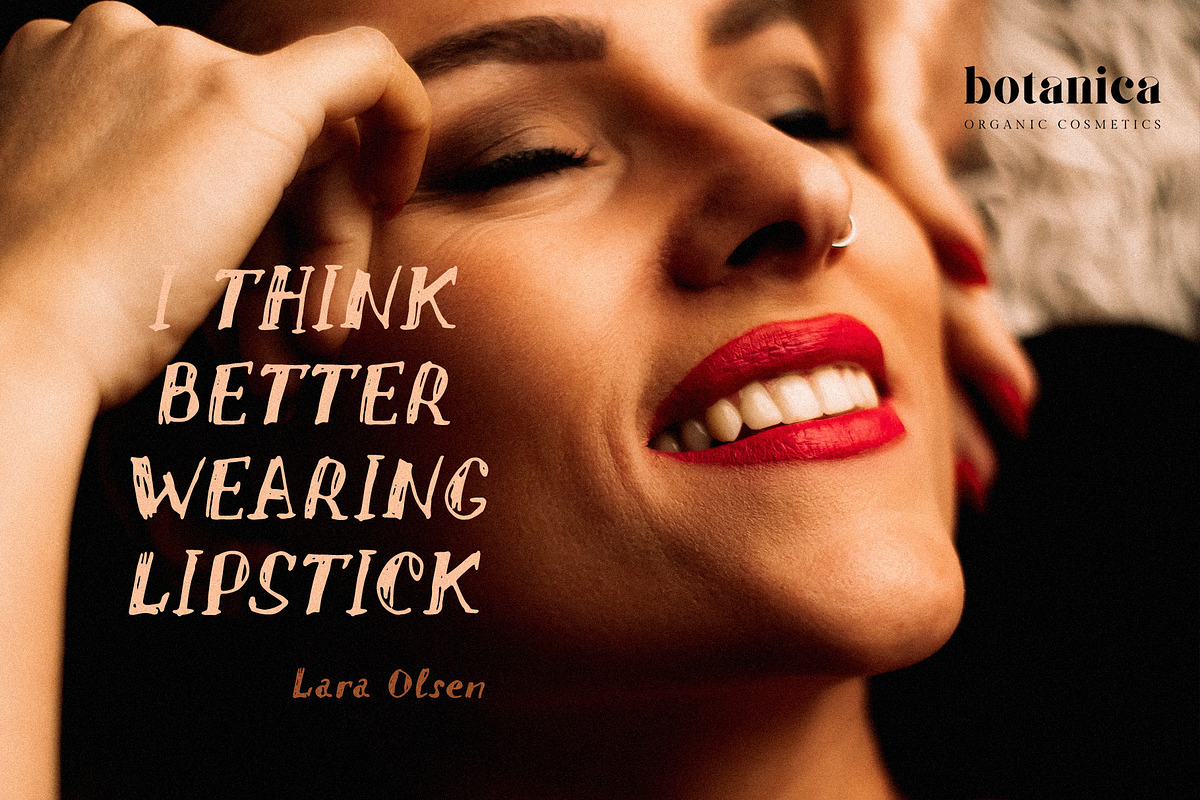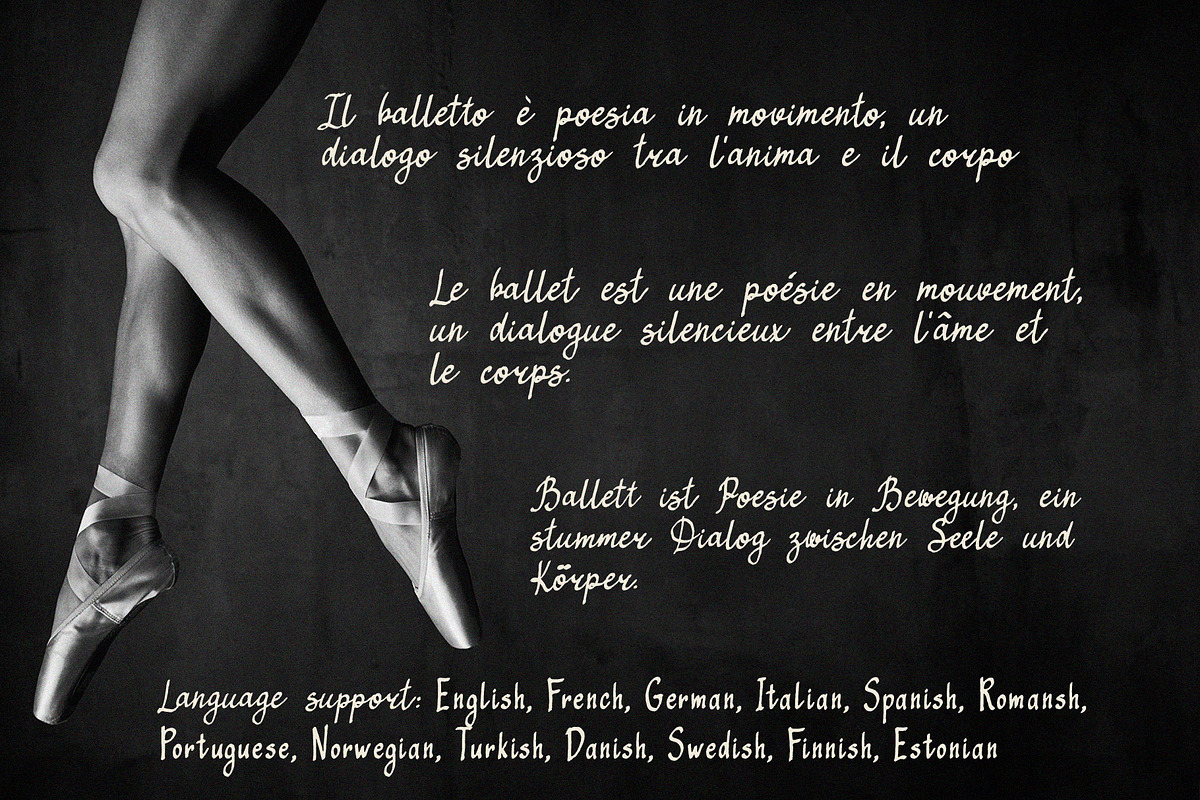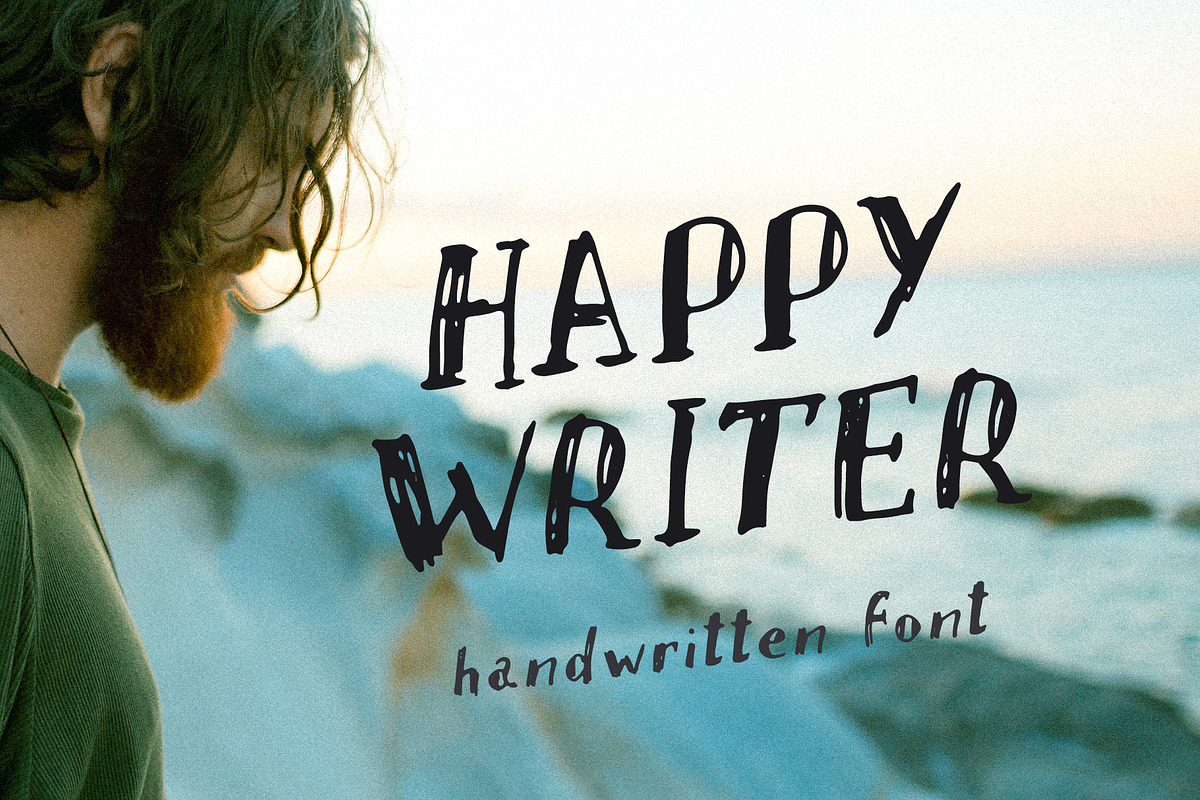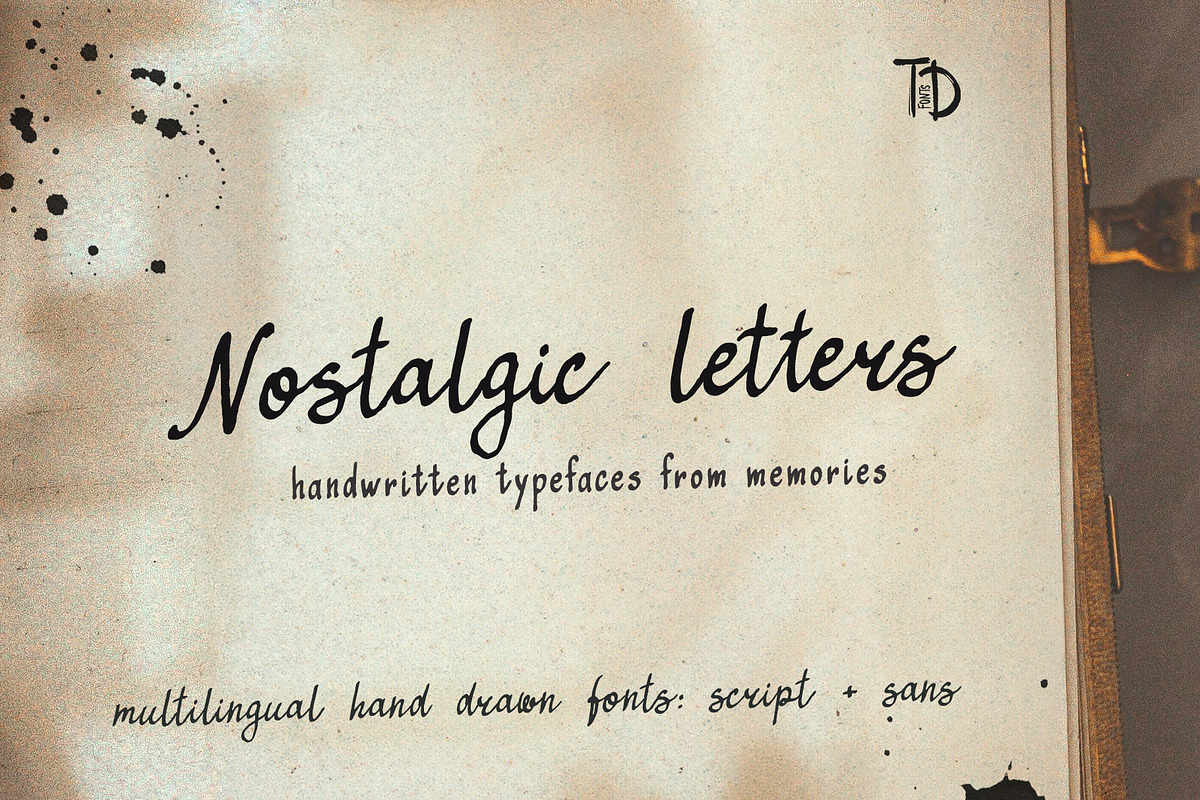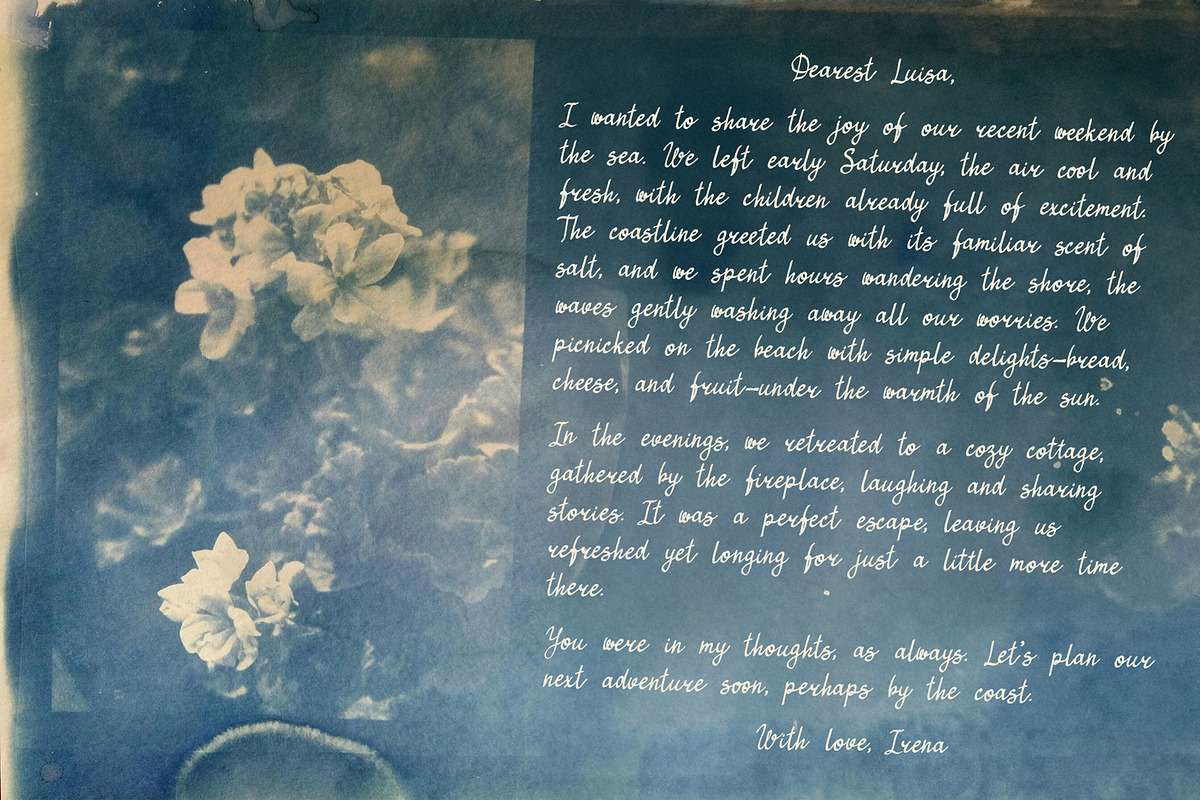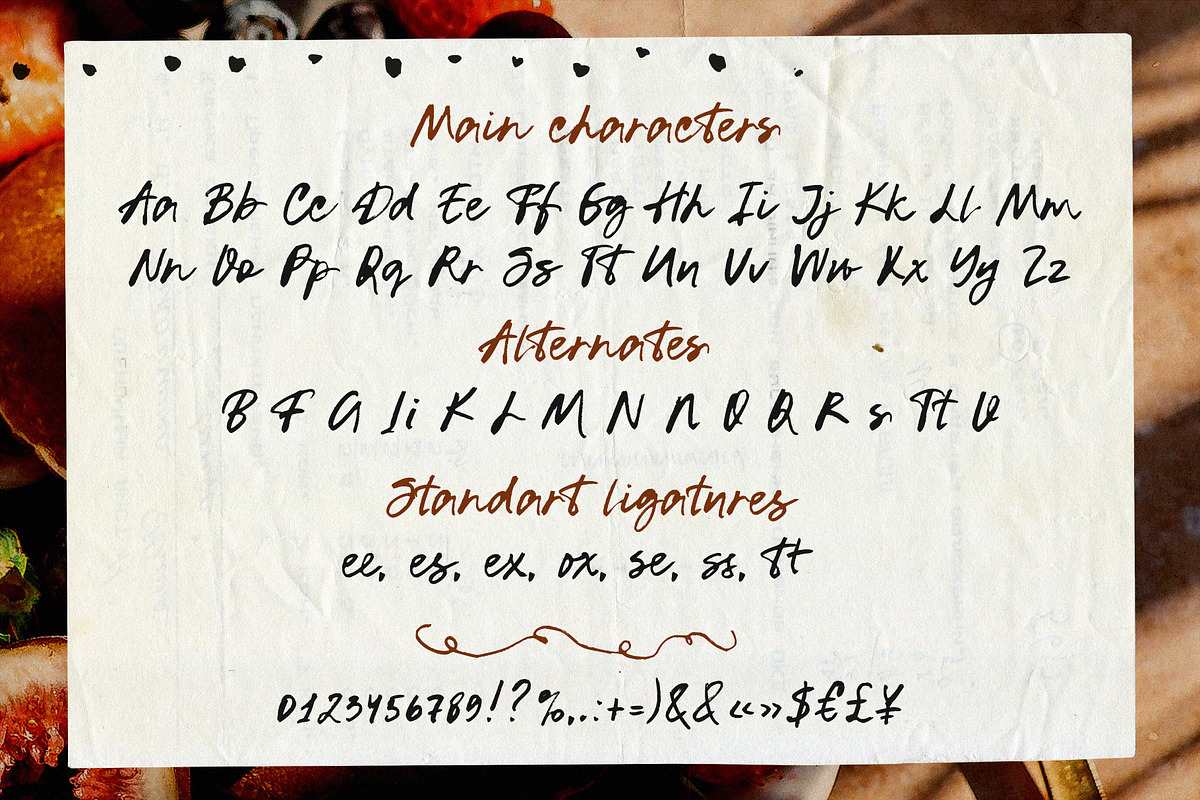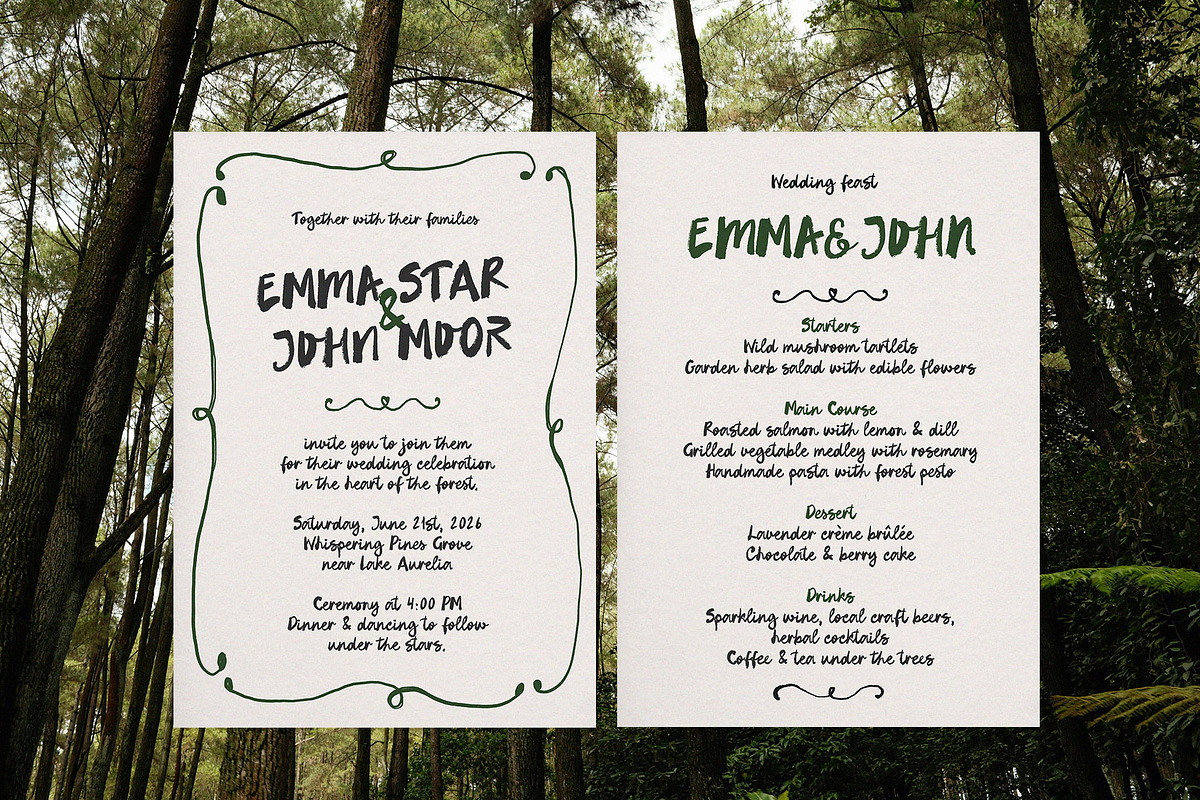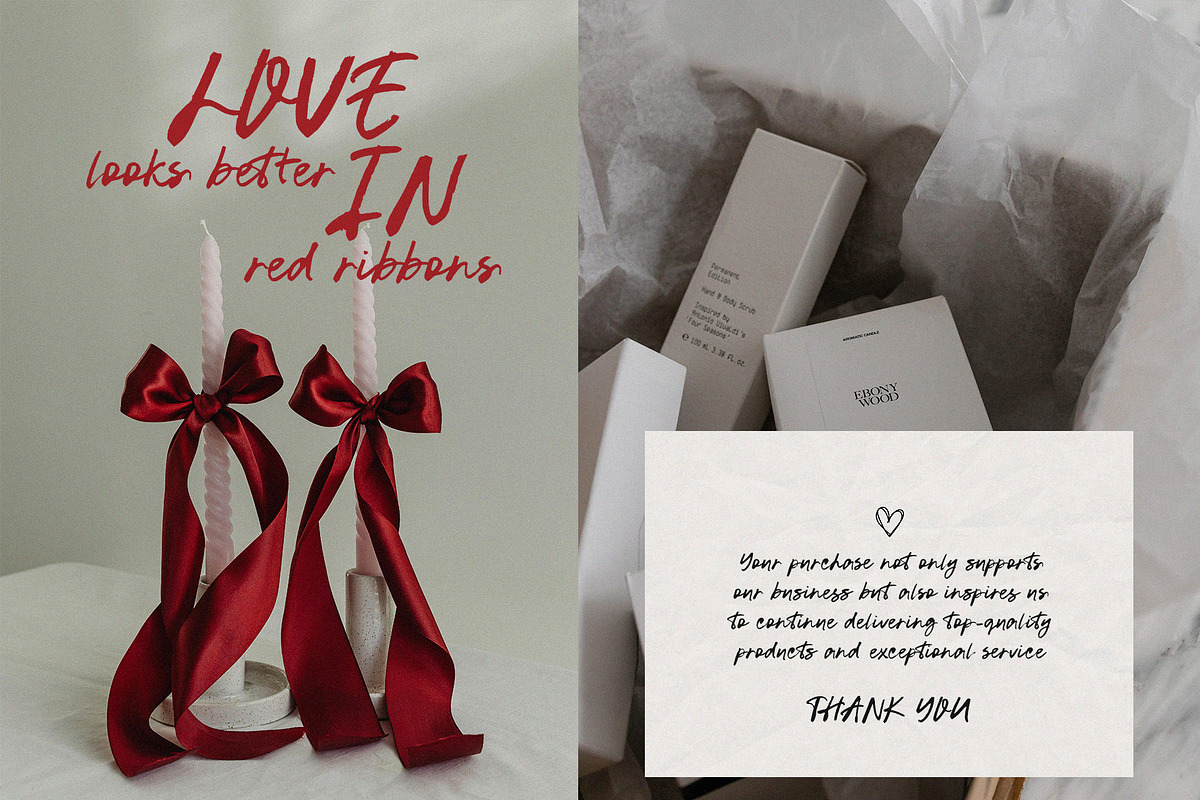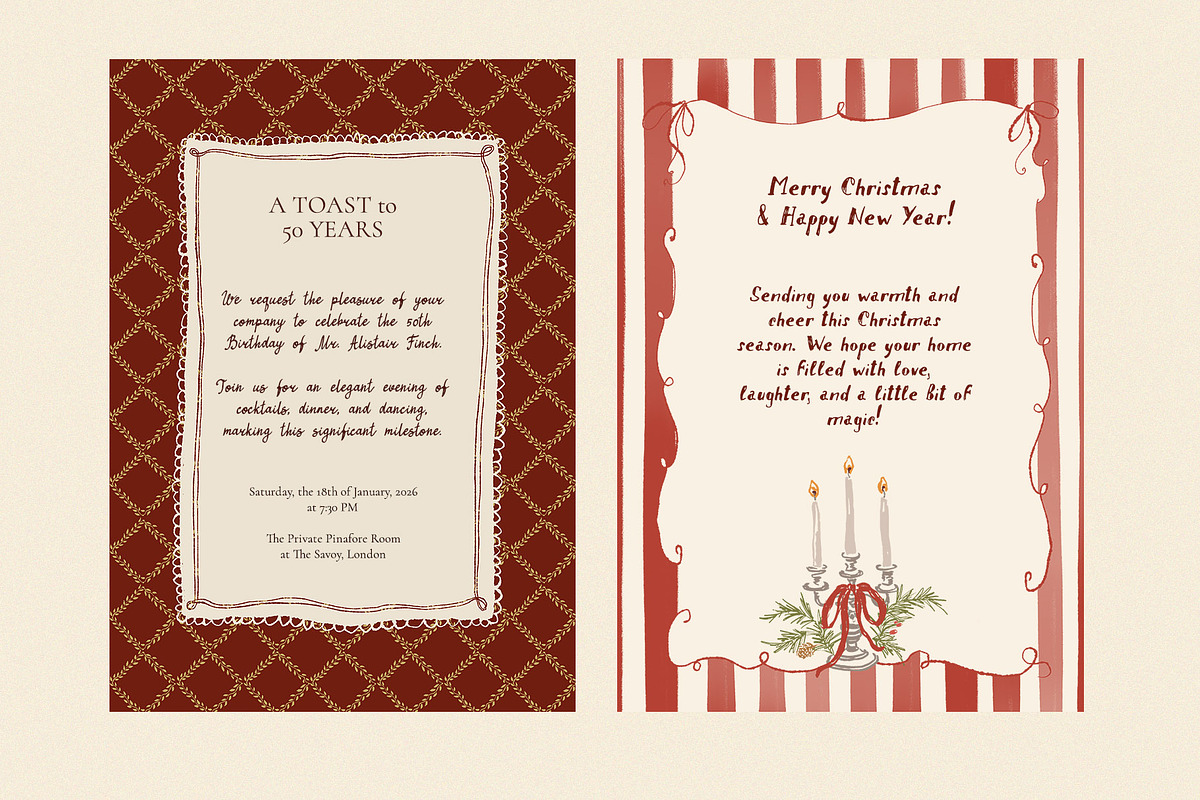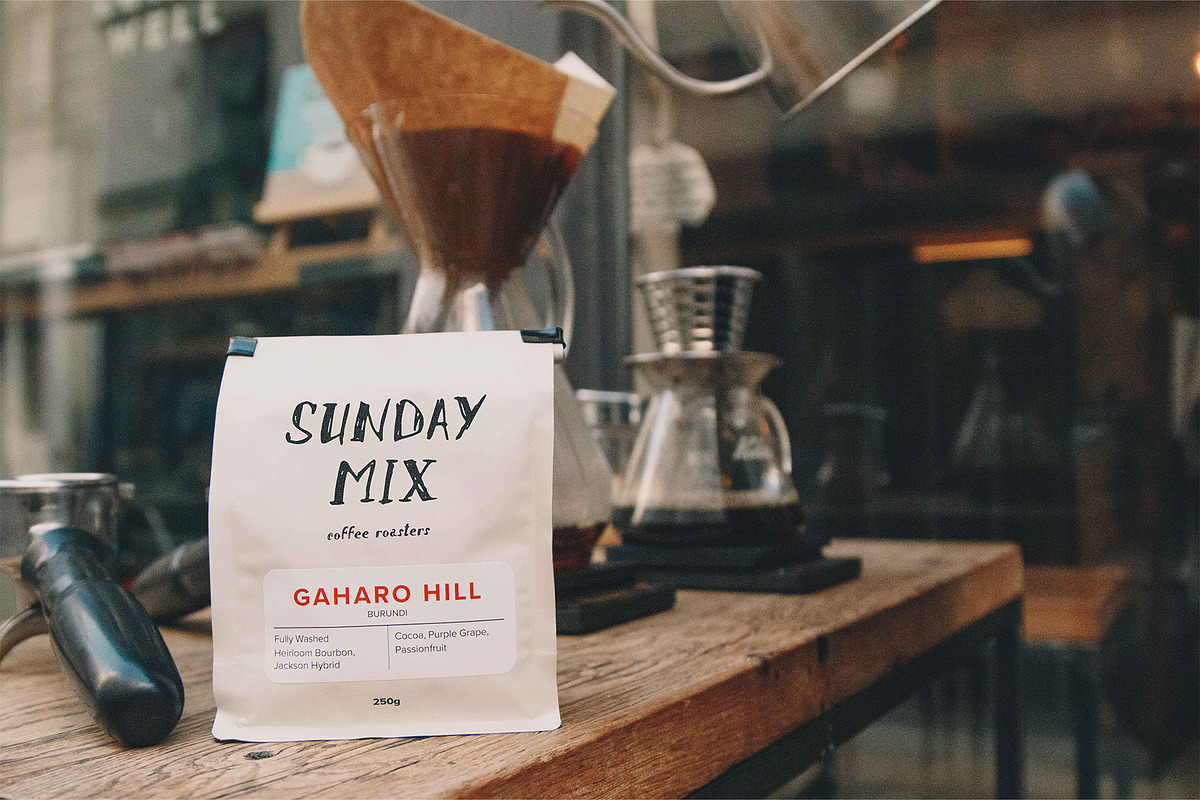
This Handwritten Font Bundle includes 4 collections of perfectly imperfect fonts with bold character and lively hand-drawn strokes. Each typeface was carefully crafted to bring warmth, authenticity, and emotion to your designs — perfect for any project that calls for a human touch.
Use them to create beautiful invitations, posters, branding materials, website headers, social media graphics, and more. The bundle features 3 script fonts and 1 sans serif, making it a versatile set for everything from wedding stationery to holiday cards and creative websites.
Every font was written entirely by hand and comes with plenty of alternates and ligatures for a truly natural handwritten feel. With a hint of vintage and retro charm, yet designed to meet modern design trends, these fonts will instantly elevate your creative projects.
Bring warmth, texture, and personality to your work — and let these handwritten fonts tell your story.